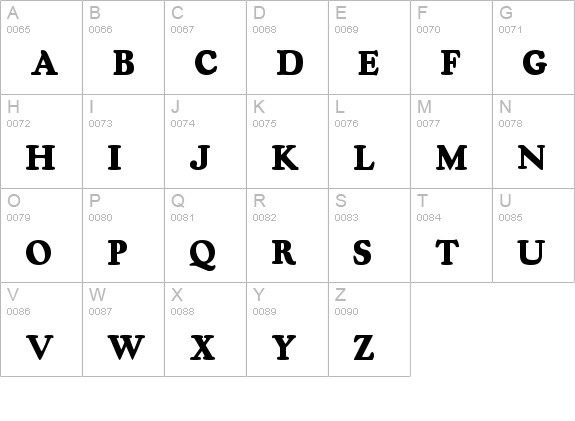
Algarve font is a stunning display typeface that exudes elegance and sophistication. With its sleek lines and modern design, this font is perfect for adding a touch of style to any project. Whether you're creating invitations, posters, or branding materials, Algarve font will make your text stand out. The versatility of this font allows it to be used in a variety of contexts, from formal to more casual designs. The best part about Algarve font is that it is completely free to download. You can get your hands on this beautiful typeface at FontsMarket.com, where you'll find a wide range of other high-quality fonts to choose from. Don't miss out on the opportunity to elevate your design projects with Algarve font - download it today and see the difference it can make!